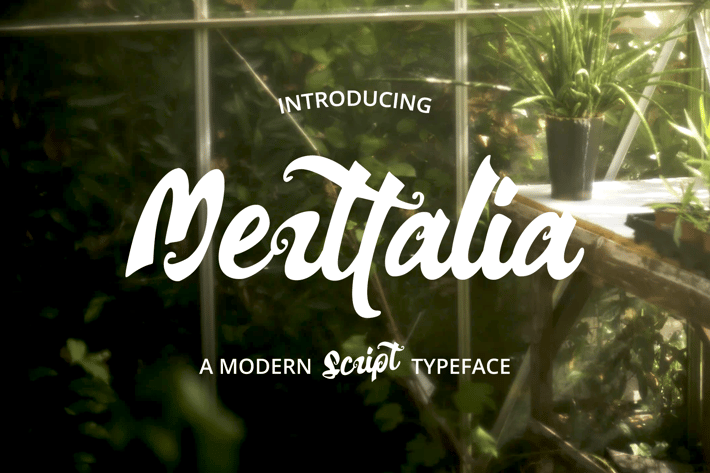
Merttalia Modern Script Font
Merttalia Modern Scirpt Font, is our new font and suitable for mockup or any work.
Great for
Sticker, Invitation Card, Brochure, etc.